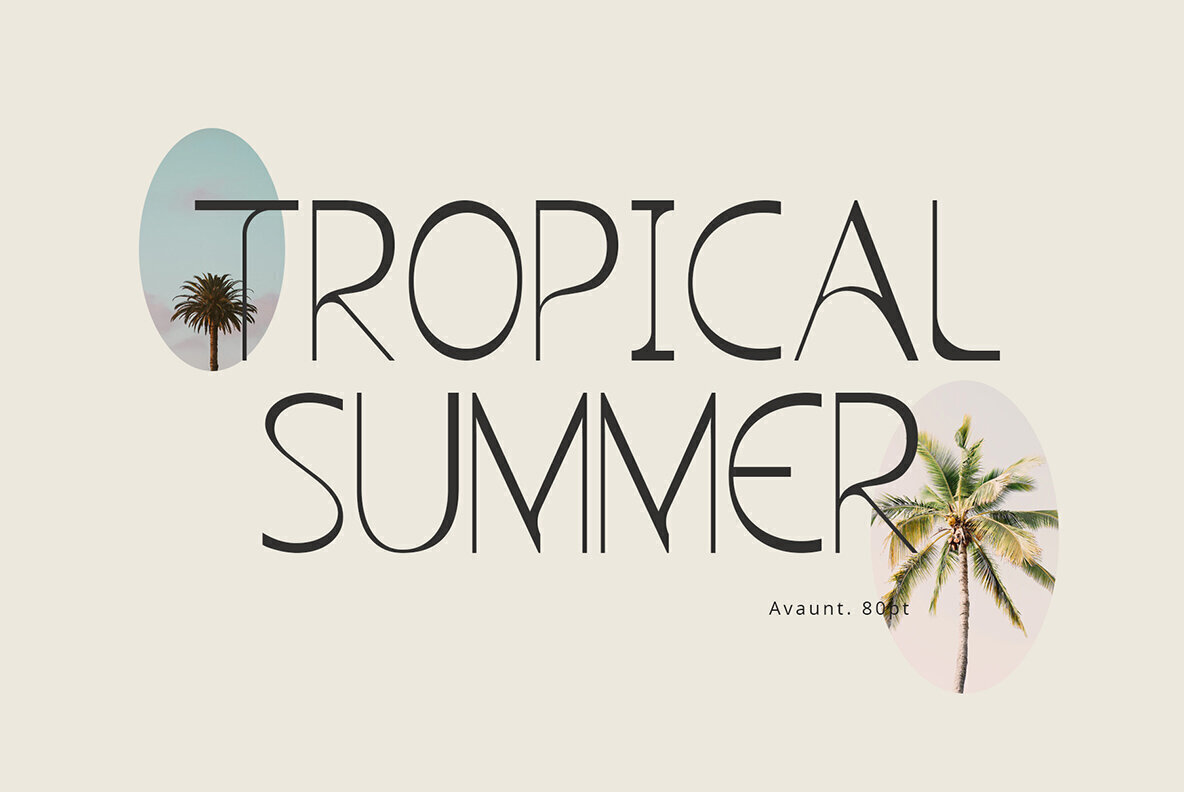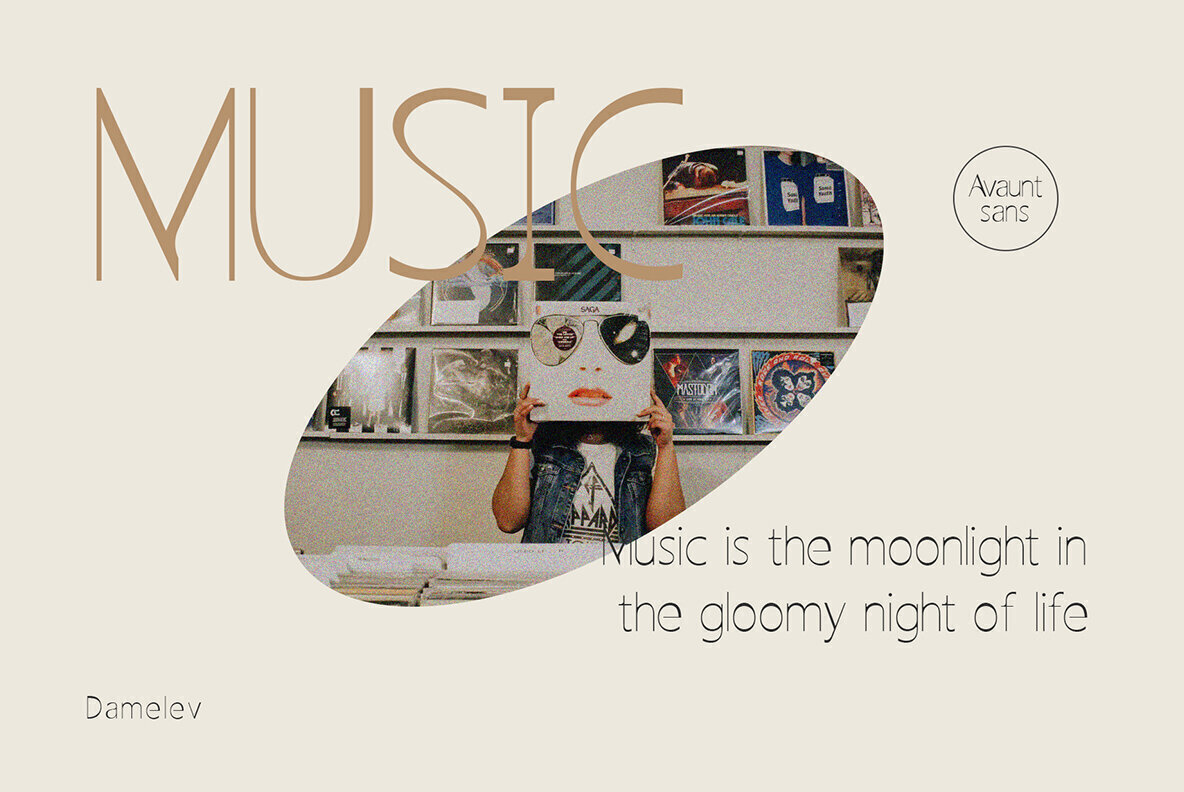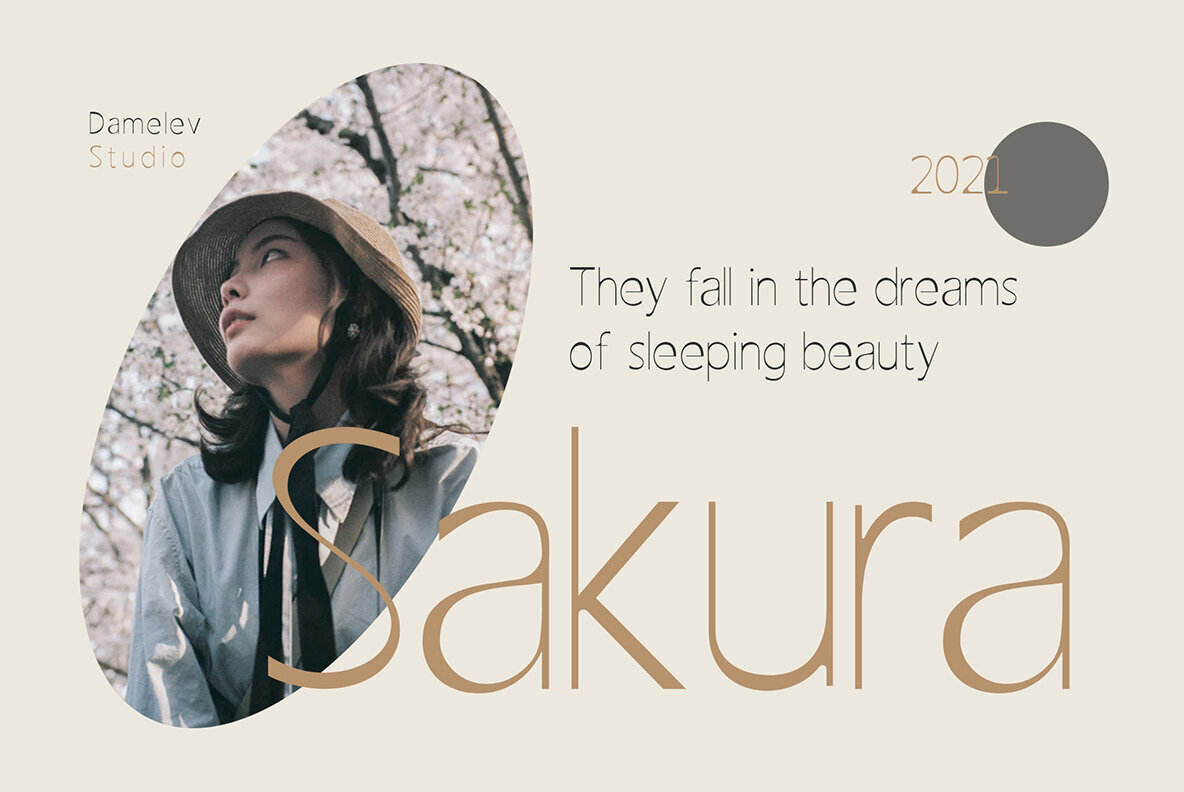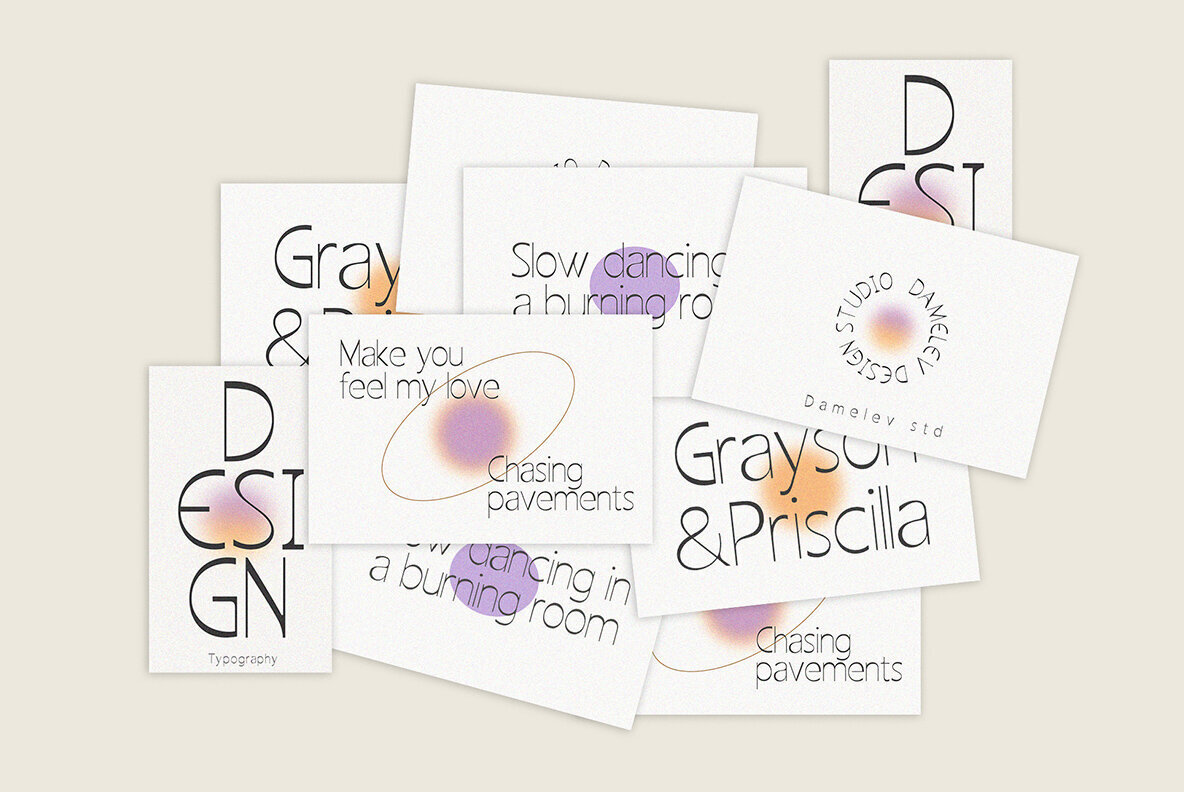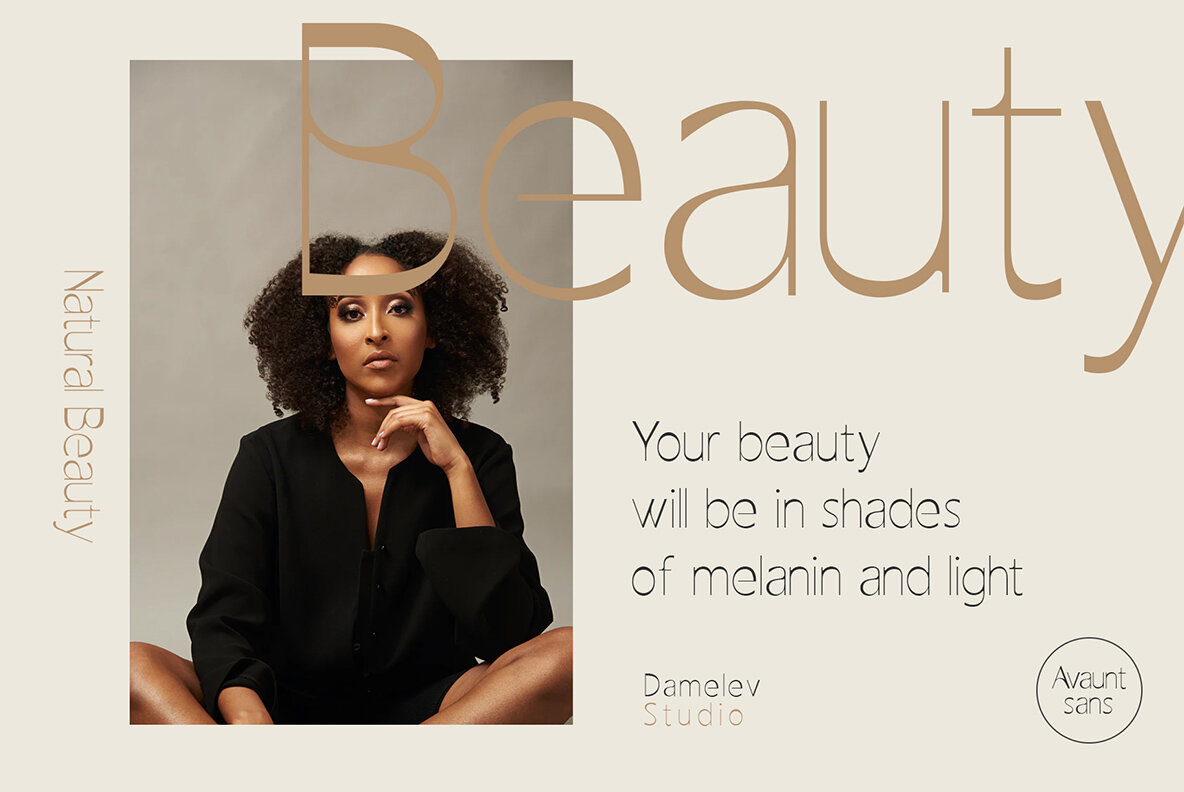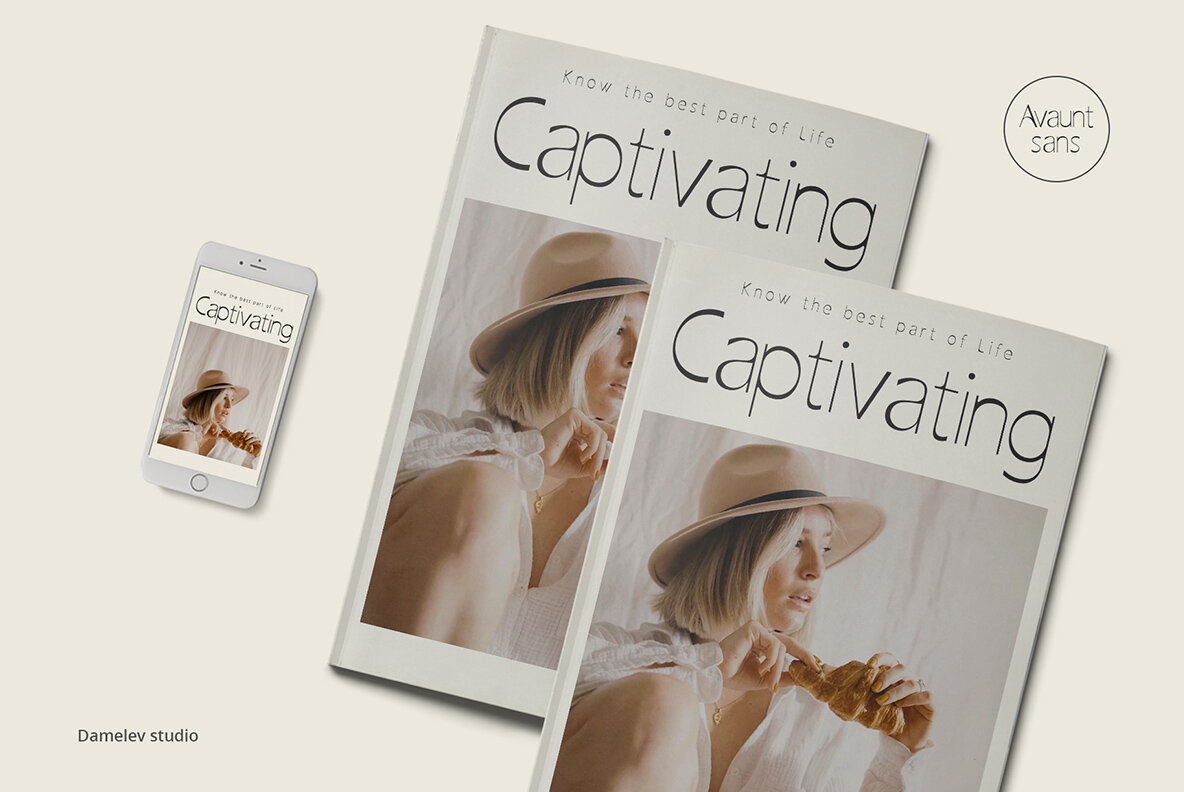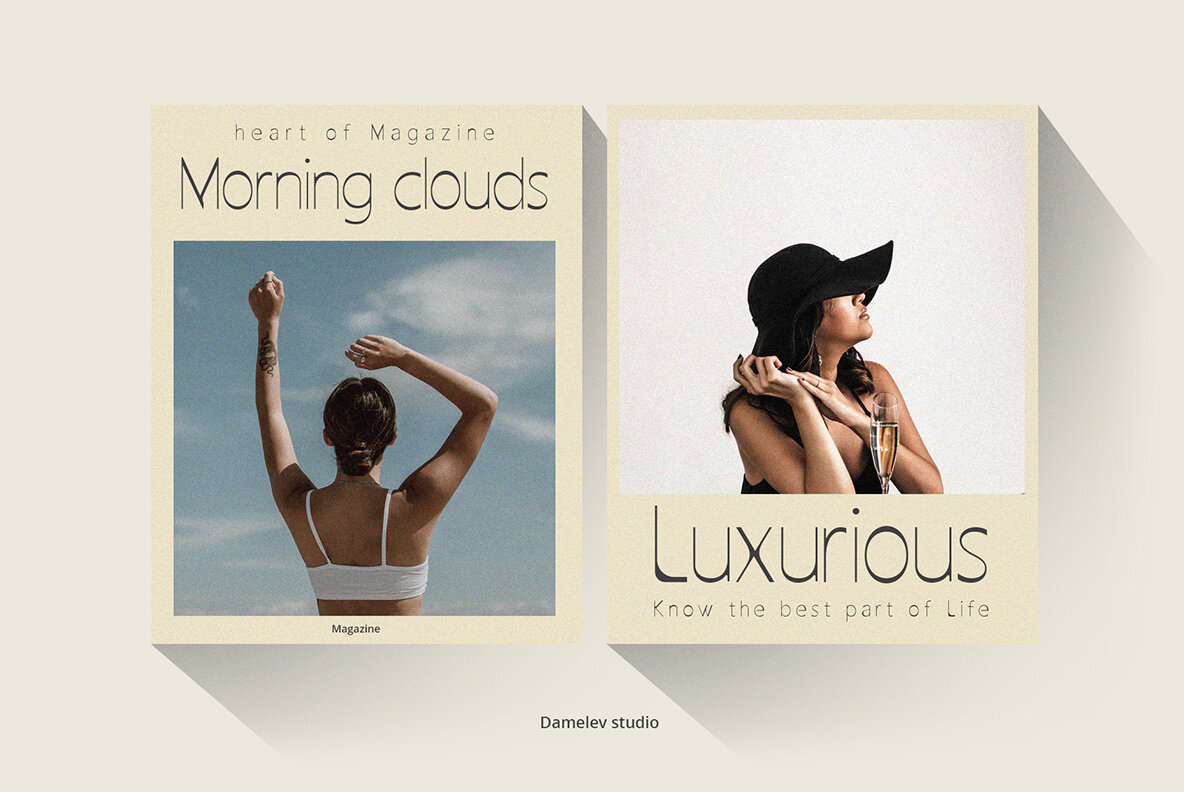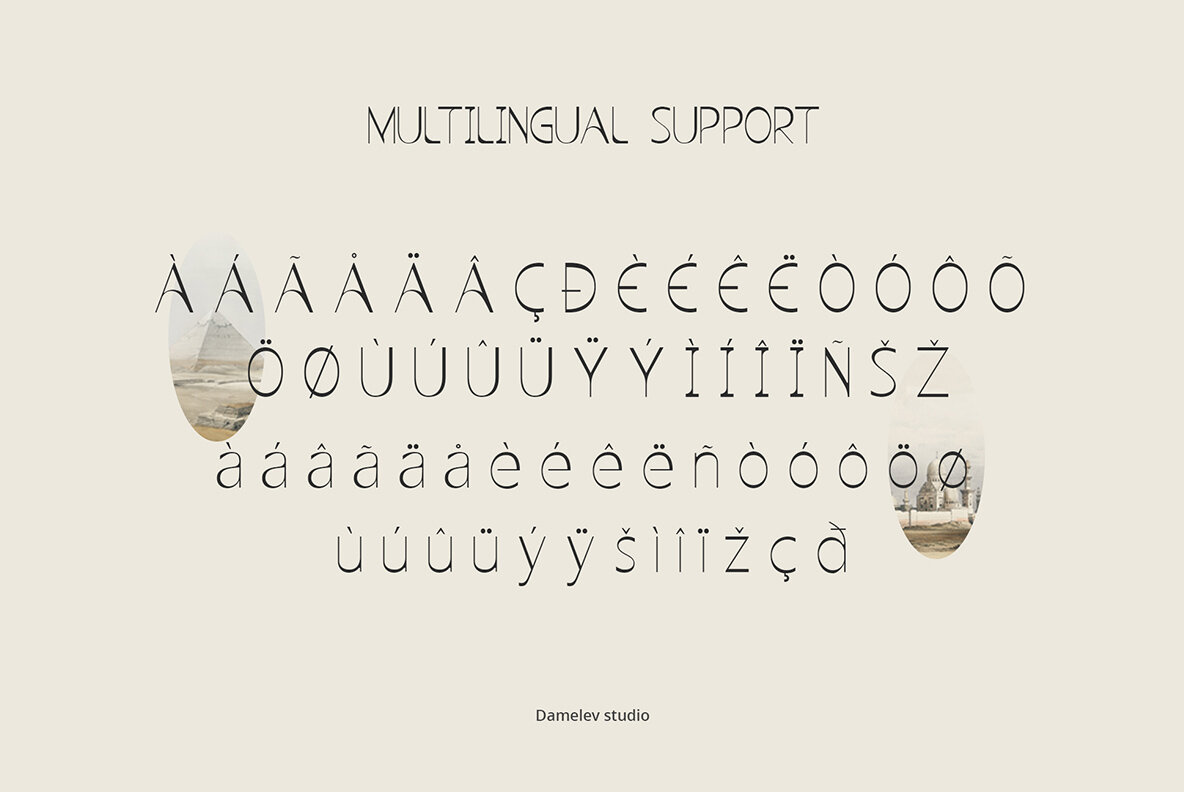
Avaunt Font
Avaunt Regular
Avaunt's elegant appearance is perfect for creating logos, t-shirts or other apparel products. The thin stems give your designs that luxurious feel and you can access OpenType features from most programs like Adobe Indesign (and others).